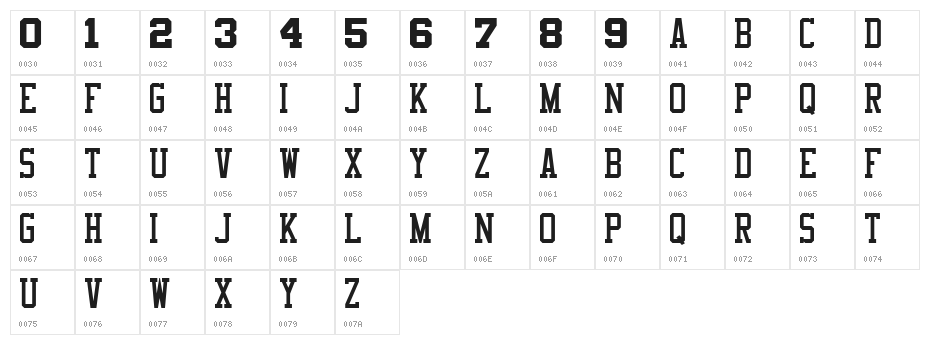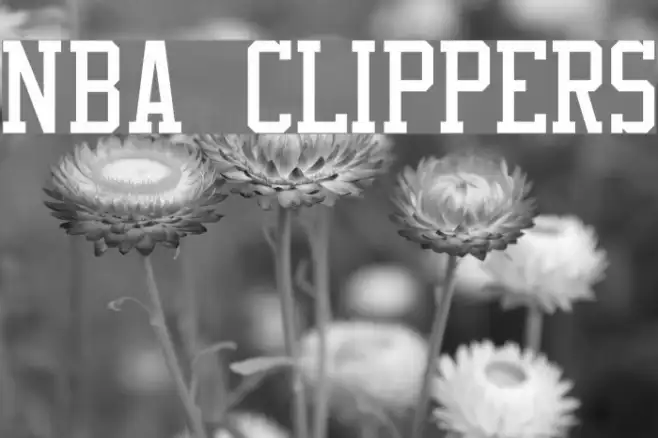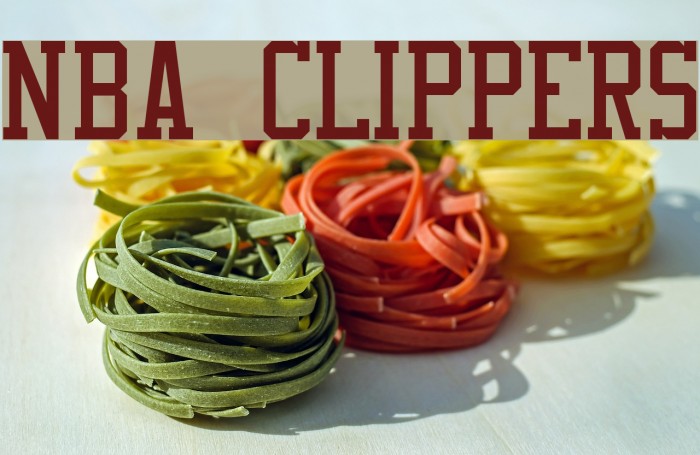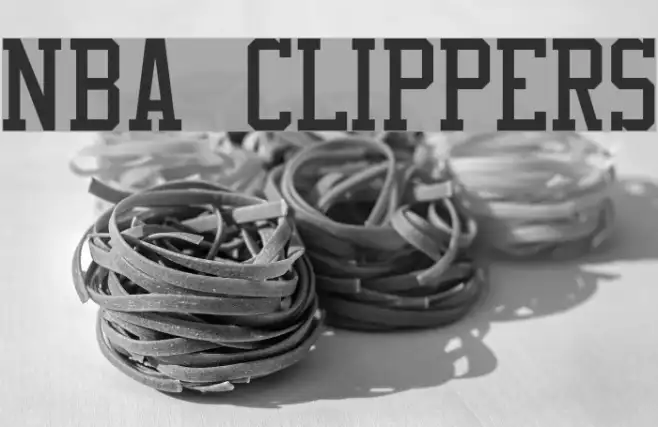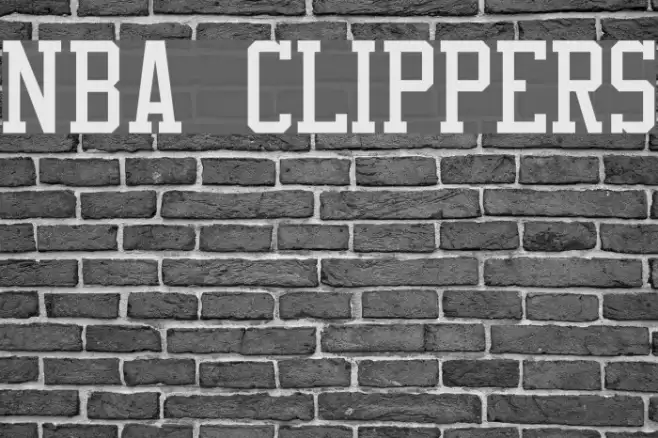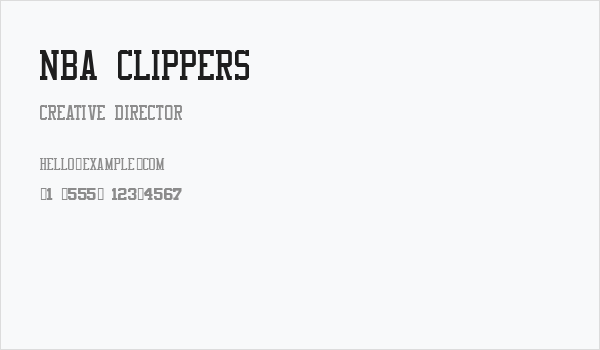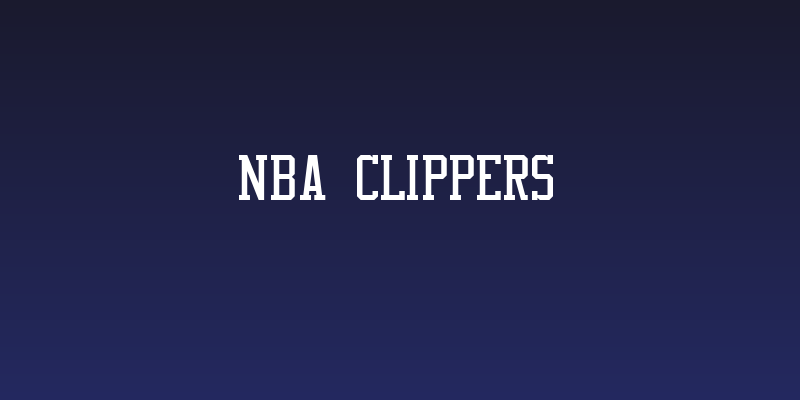
NBA Clippers Font
NBA Clippers Description
This font features a bold, geometric style with strong, angular lines and a robust presence. The uppercase letters are uniform in height and width, creating a cohesive and structured appearance. The numbers follow the same bold and blocky design, ensuring consistency across all characters. The font's design is reminiscent of sports or collegiate themes, making it ideal for projects that require a strong, impactful visual statement. Its clean lines and lack of ornamentation give it a modern feel, while the boldness adds a touch of vintage athleticism.
| Overall Style | Modern, Athletic |
| Use Case | Headlines, Logos, Sports Branding |
| Proposed Projects | Ideal for sports team branding, event posters, merchandise, and headlines that require a bold statement. |